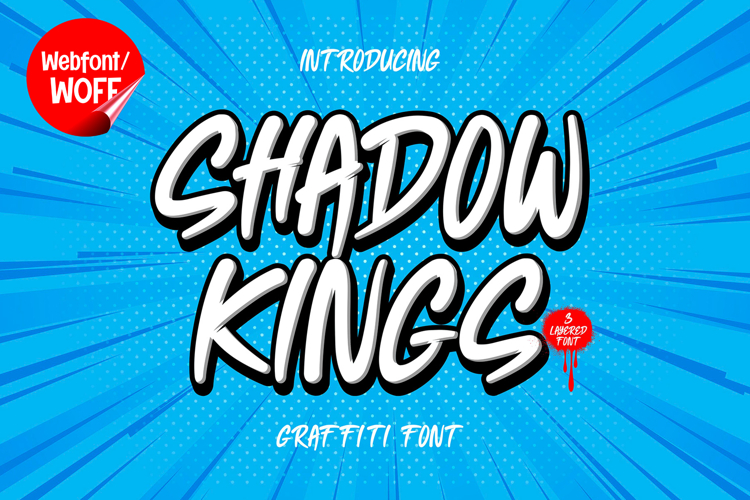
Shadow Kings | Monoline Shadowed Webfont for Bold Modern
Shadow Kings is a monoline shadowed webfont designed to bring depth, modern style, and bold visual impact into contemporary website design. Inspired by retro shadow typography and clean monoline structures, this font combines smooth line consistency with dimensional shadow effects to create a unique and eye-catching typographic identity. It is an excellent choice for projects that aim to deliver a stylish and visually dynamic appearance.
Shadow Kings includes a complete set of uppercase characters designed with monoline shadowed aesthetics. The letterforms feature clean strokes and layered shadow details that create a dimensional effect while maintaining a sleek and modern appearance. These characteristics make it ideal for headlines, banners, hero sections, branding layouts, and featured content where strong visual presence is essential.
In addition to letters, the font includes numbers and punctuation, allowing flexible usage across various parts of a website. It works well for creative portfolios, music websites, fashion branding, gaming projects, promotional campaigns, and editorial layouts. Each character maintains a consistent shadowed style, ensuring a cohesive and unified visual identity throughout the design.
With multilingual support, Shadow Kings includes a wide range of accented characters, making it suitable for international websites and global audiences. This ensures content remains clear and visually consistent across different languages while preserving the bold and stylish aesthetic.
The monoline shadowed style of Shadow Kings makes it especially suitable for retro-inspired branding, urban-themed websites, creative agencies, entertainment platforms, and modern digital campaigns. Its layered shadow effect adds depth and movement, helping websites stand out in visually competitive environments. The clean monoline structure balances the decorative shadow details, creating a modern and professional appearance.
Despite its stylized and dimensional appearance, Shadow Kings is designed with readability in mind. The spacing and proportions are carefully balanced to ensure clarity, particularly in display sizes. This allows designers to use the font effectively for impactful headings and promotional text without sacrificing usability.
Shadow Kings is a webfont that combines monoline typography with bold shadow effects and modern digital performance. Its clean forms, dimensional depth, and stylish character create a distinctive typographic presence that enhances website design. For projects that require a bold, modern, and visually engaging display font, Shadow Kings offers a versatile and powerful solution.